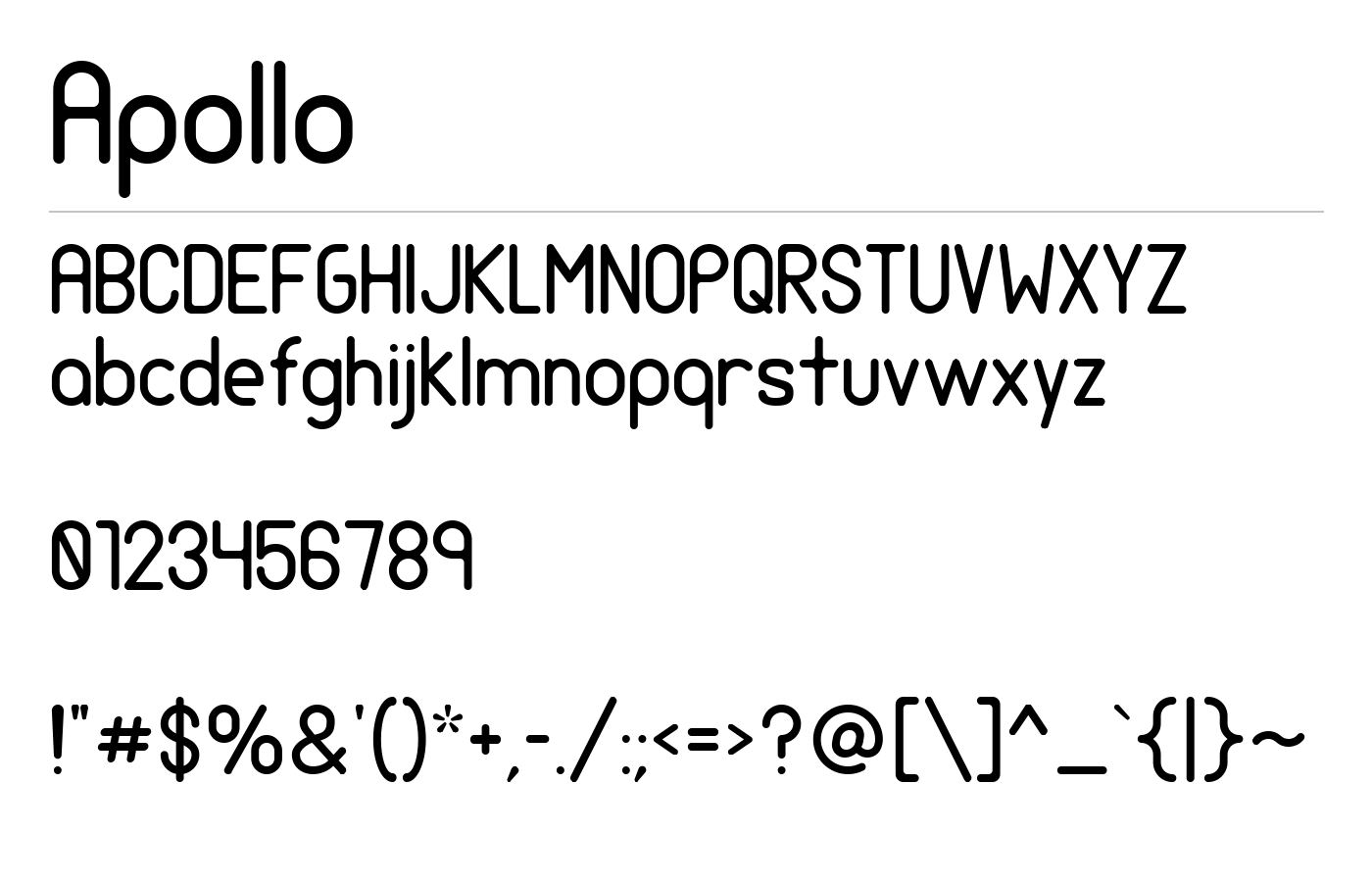
Apollo is a rounded, modern sans serif font characterized by its clean, geometric shapes and uniform stroke weight, giving it a friendly and approachable feel. Its tall x-height and slightly condensed letterforms make it highly legible and versatile, ideal for branding, headlines, and digital interfaces where a contemporary yet inviting tone is desired.
Apollo Font
About Apollo Font
| Font family | Apollo Font |
| Designer | Kevin May |